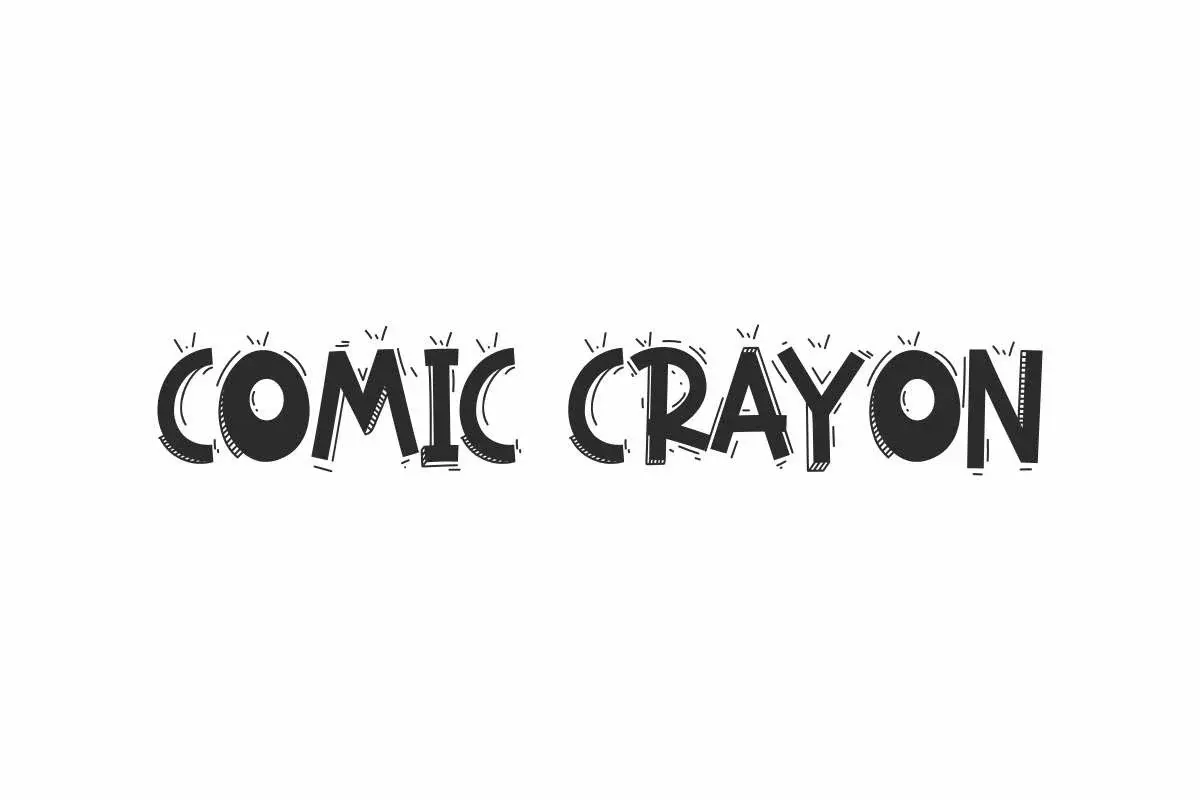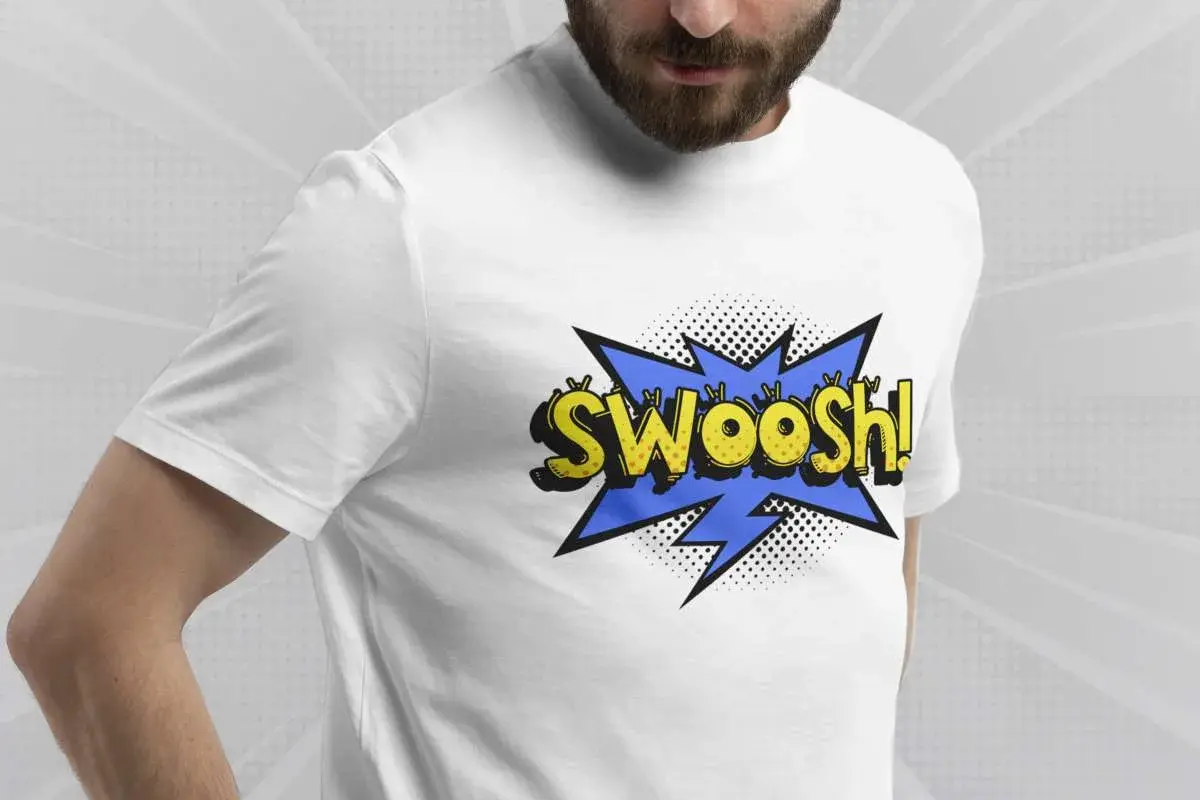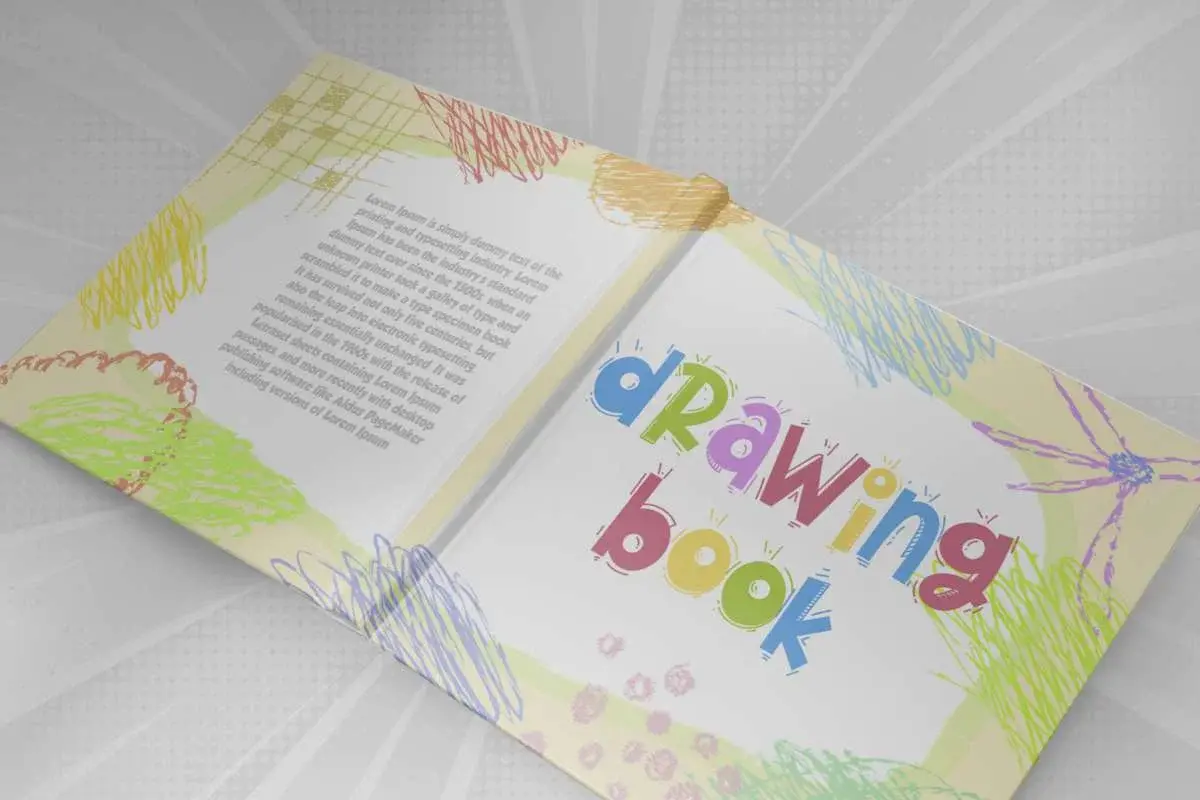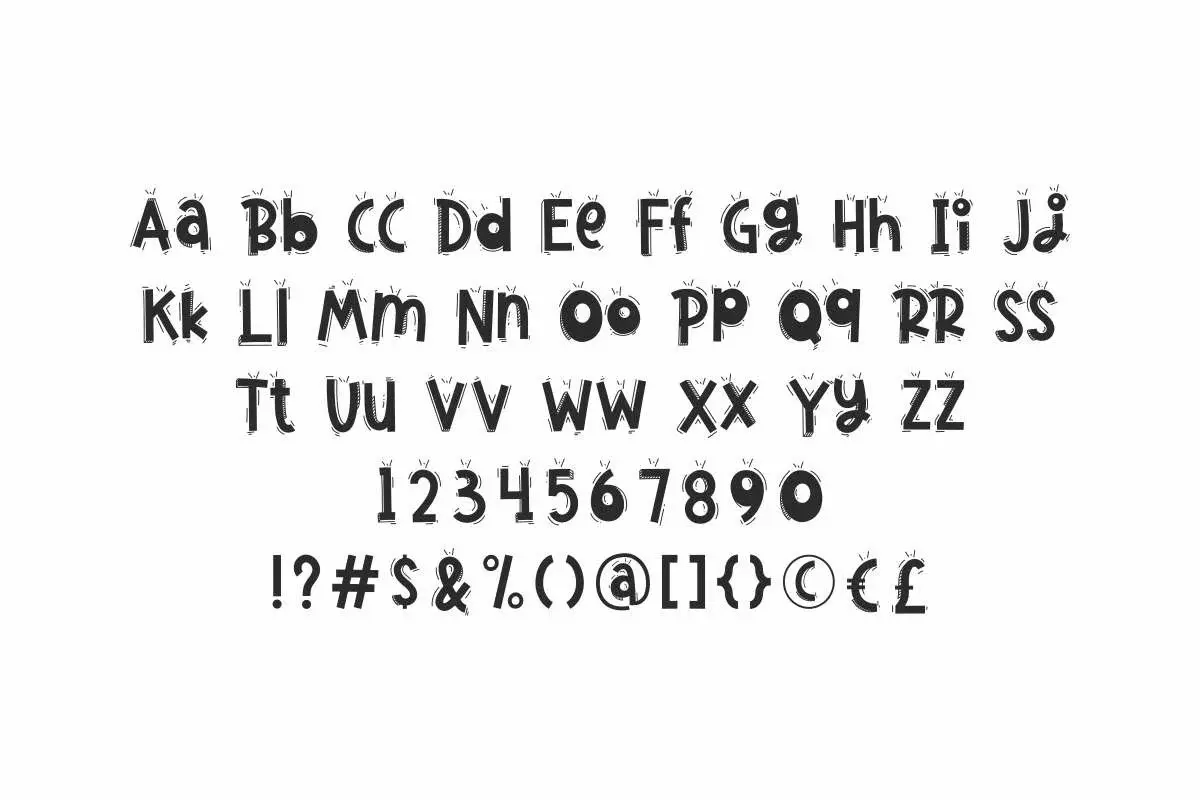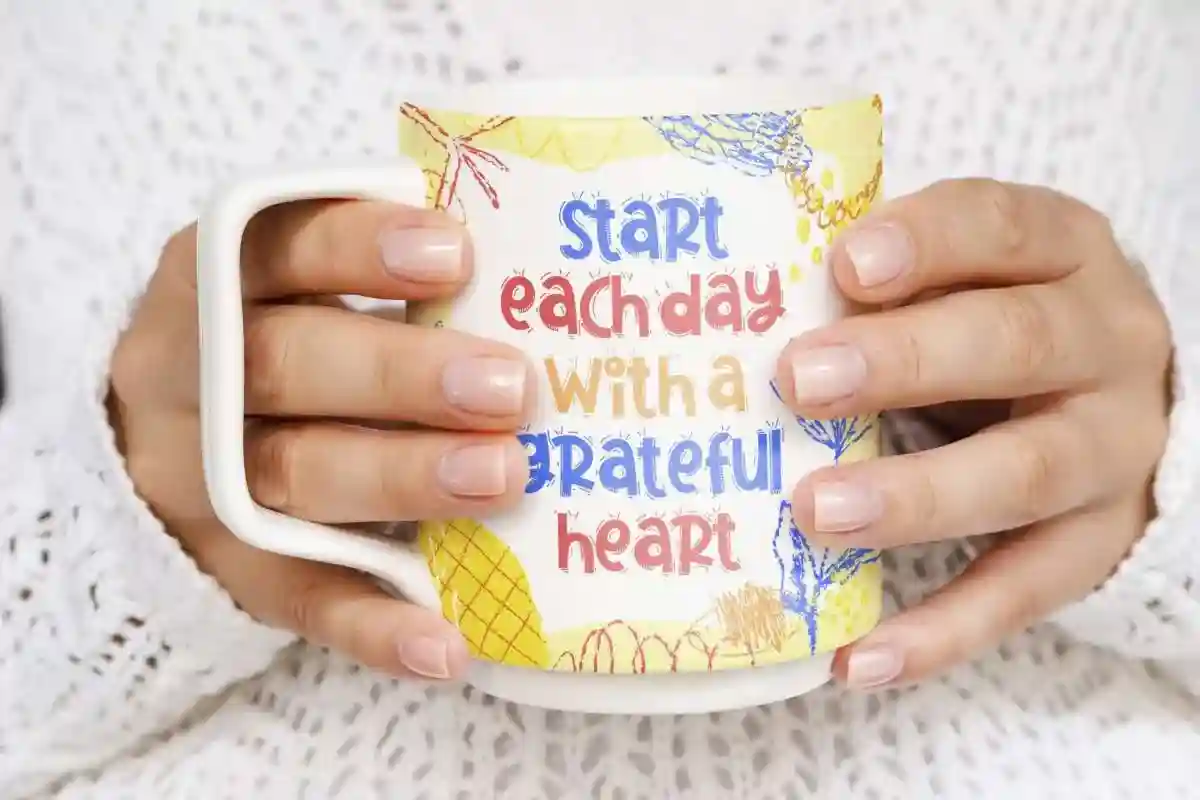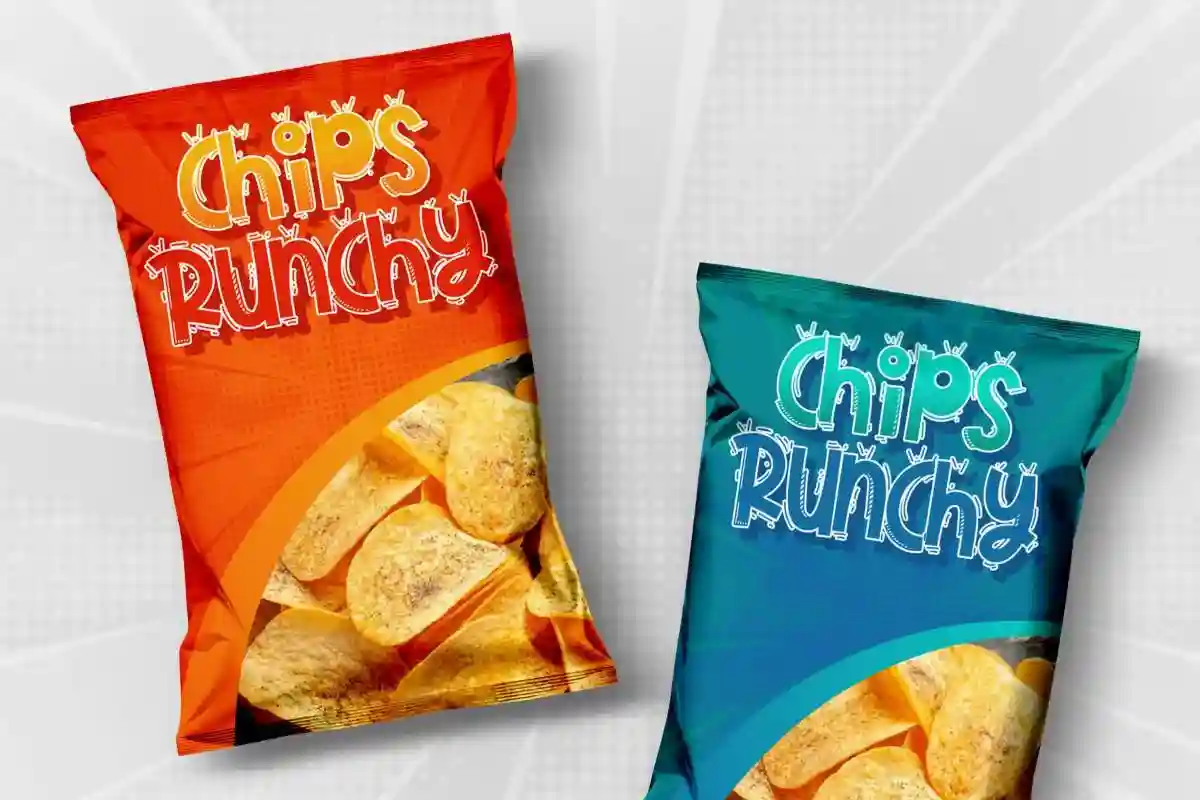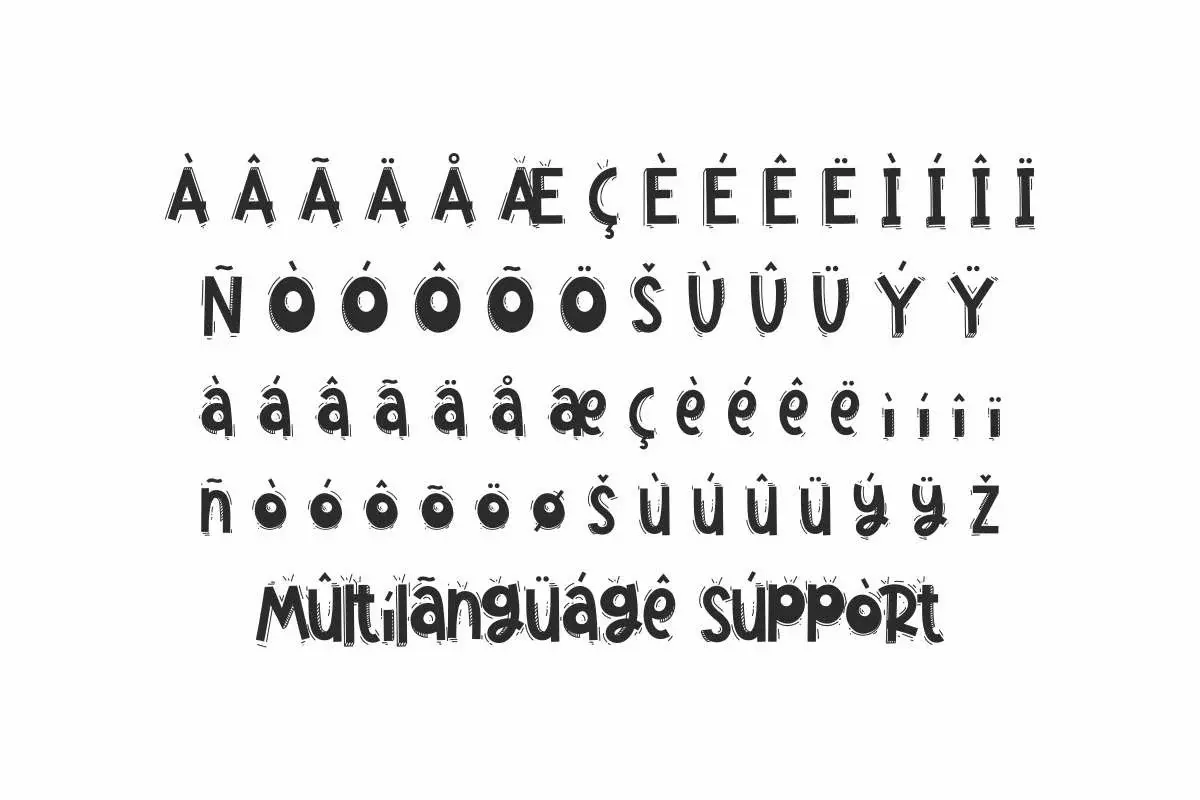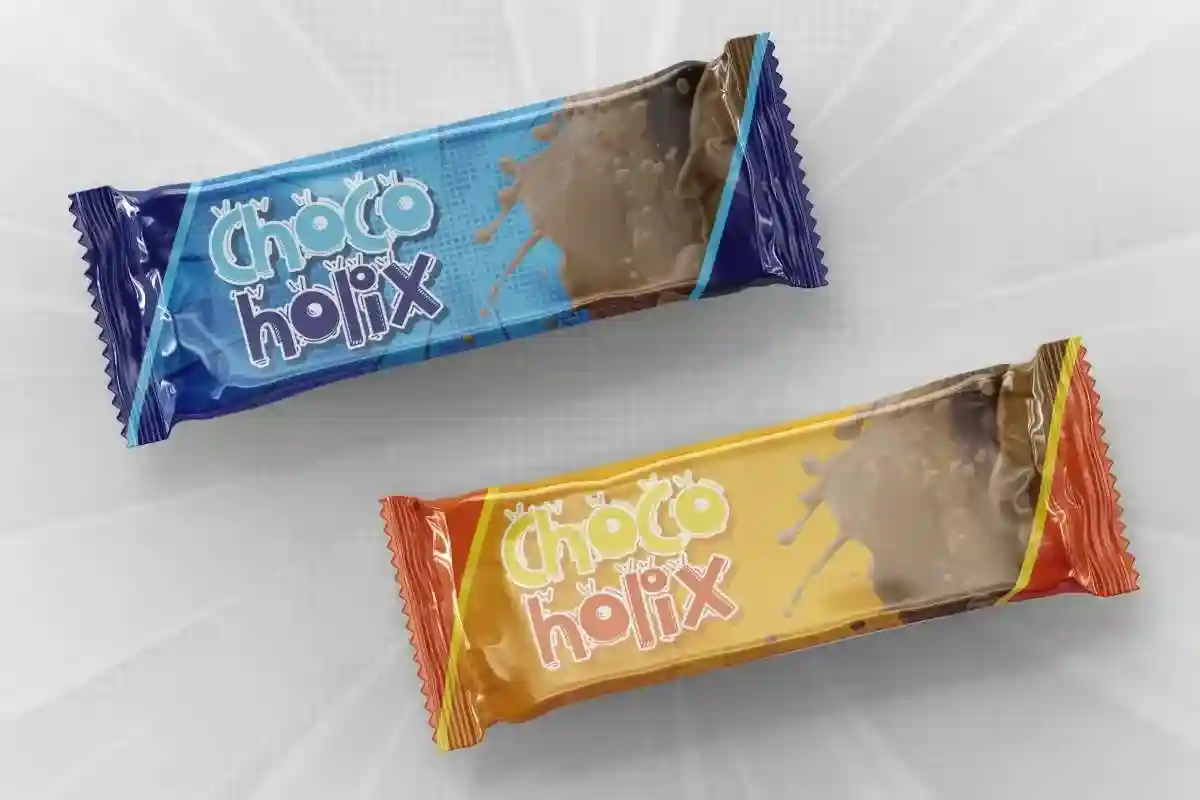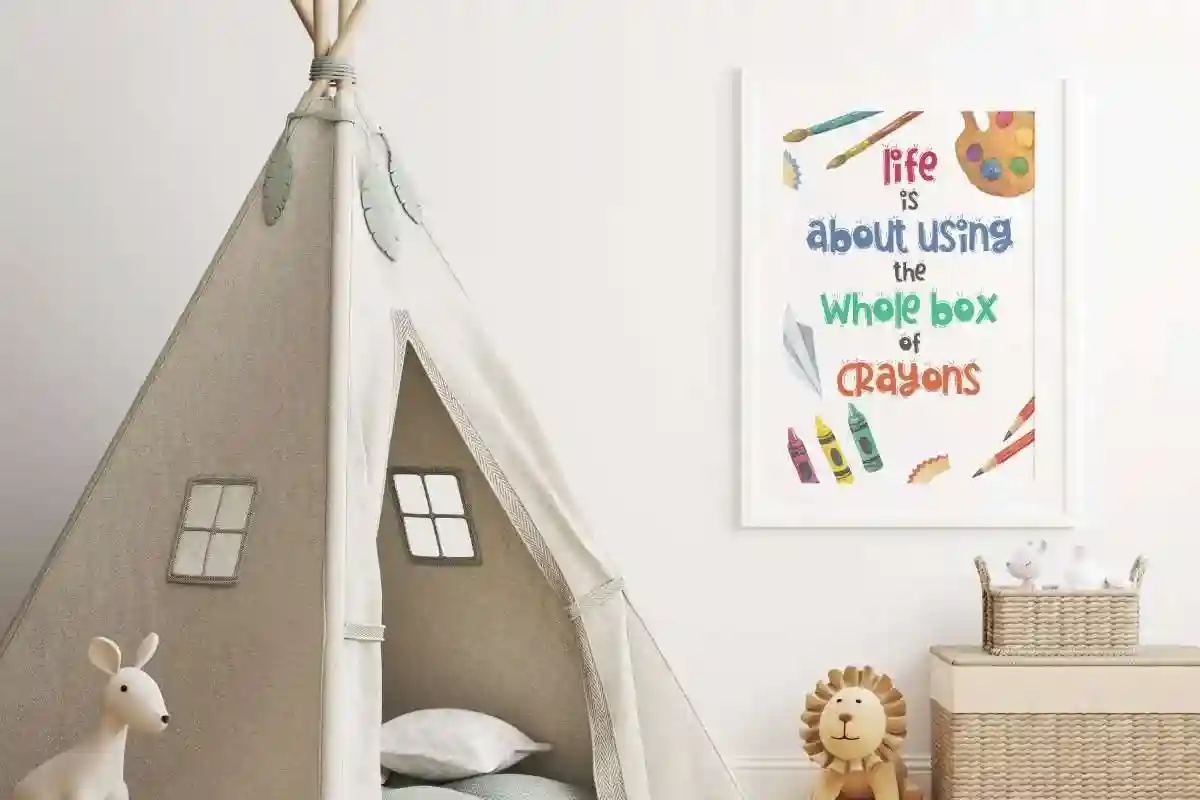
Comic Crayon Font is a unique typeface that has a comic look style, would be great for headline, kids stuff, school, snacks, t-shirt screen printing, etc.
Comic Crayon Font is a fun display with comic style created by NihStudio. This font has a distinctive comic strip on each letter that makes it stand out. It is perfect for many industries such as, craft, fashion, kids stuff, school, snacks, and many more!
Comic Crayon Font would be good for billboard, creating logo, custom design, printed materials, product packaging, quote, stationery, title, and anything that needs a touch of comics that is stunning and easy to read.
Comic Crayon Font comes with a full set of Uppercase and Lowercase Basic Characters, Number, Punctuation and Symbol, and also supports multilingual characters. Ready to use both on Windows machine or Mac with simple installations. It’s tested to work well in the Adobe Apps (Illustrator, Adobe InDesign, Adobe Photoshop) CorelDraw, and others. PUA Encode Characters means you can access all the glyphs and other characters easily – Fully accessible without additional design software.